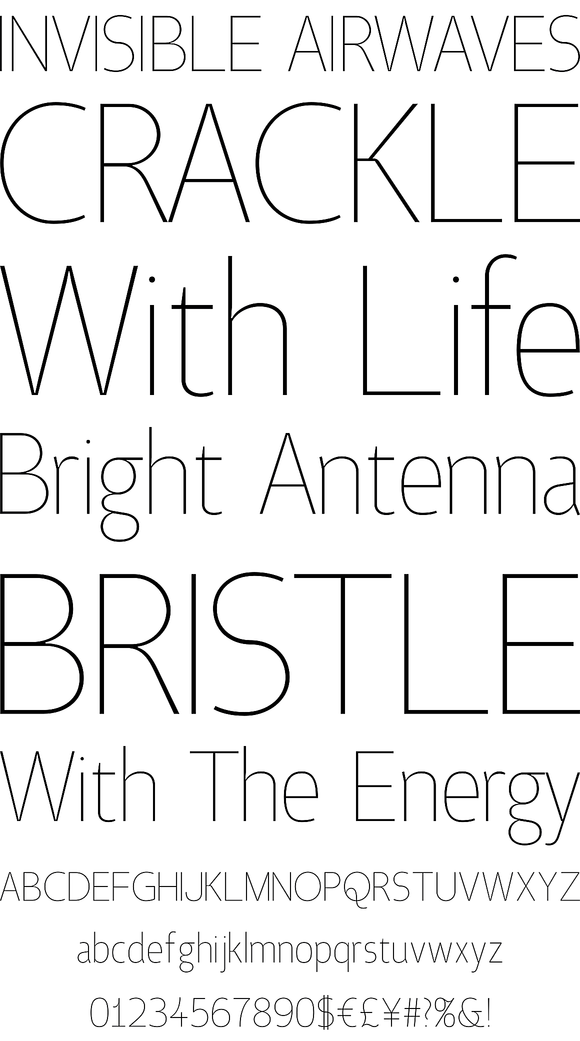
Foundry: Suomi Type Foundry
Taste, with seven weights, is versatile enough for use in headlines and text. Works out to be quite the workhorse for publication and content design studios.